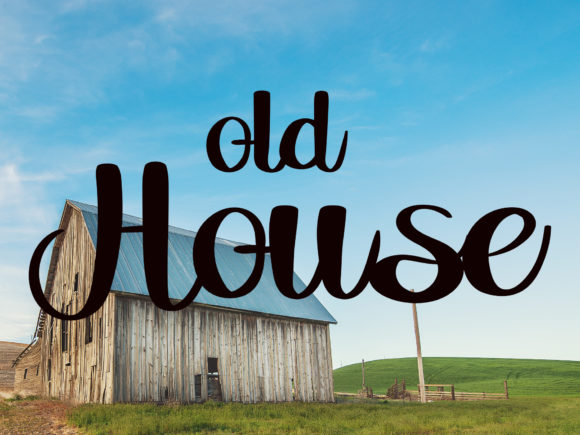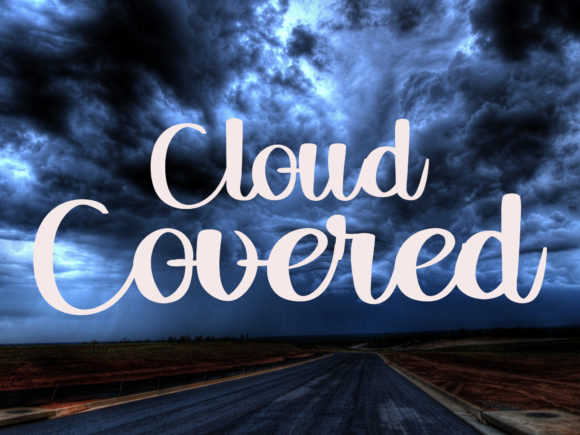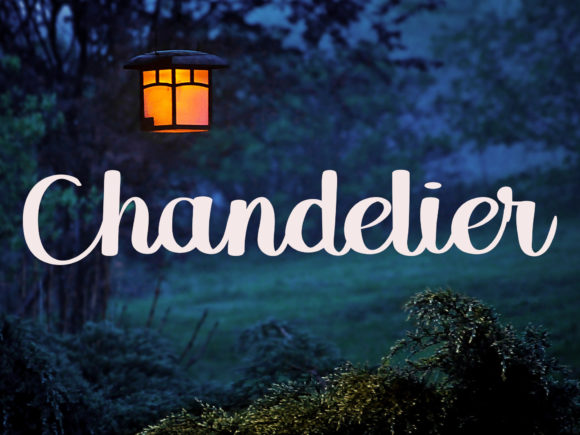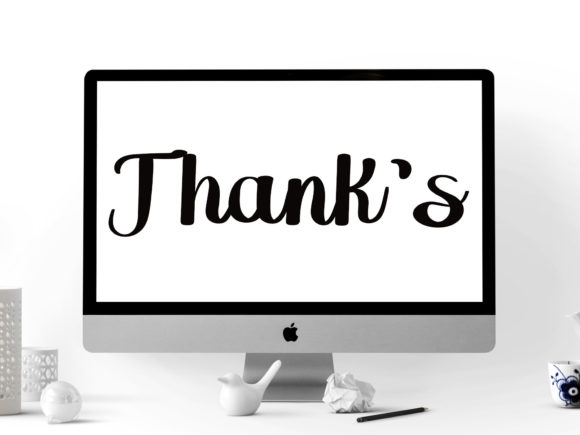
Candy Sea Font: The Sweetest Addition to Your Design Collection
Are you a designer or crafter looking for a font that can add a touch of sweetness and romance to your designs? Look no further than Candy Sea, a beautiful handwritten font that’s perfect for creating wedding invitations, cards, and other designs that require a personal and delicate touch.
What is Candy Sea Font?
Candy Sea is a sweet and delicate handwritten font that’s designed to bring a touch of joy and whimsy to your designs. With its dainty and elegant lettering, this font is ideal for creating romantic and personalized designs that will leave a lasting impression on your audience.
Key Features of Candy Sea Font
- Handwritten with love: Candy Sea is a carefully crafted handwritten font that’s designed to look like it was written with love and care.
- Dainty and delicate: The font features delicate lettering that’s perfect for creating romantic and whimsical designs.
- Joyful and playful: Despite its delicate nature, Candy Sea has a playful and joyful vibe that’s perfect for creating designs that are fun and uplifting.
- Perfect for wedding designs: With its romantic and elegant feel, Candy Sea is an ideal choice for creating wedding invitations, cards, and other wedding-related designs.
Why Choose Candy Sea Font?
So, why should you choose Candy Sea font for your designs? Here are just a few reasons why this font stands out from the crowd:
- Unique and eye-catching: Candy Sea is a unique and eye-catching font that’s sure to grab attention and leave a lasting impression on your audience.
- Versatile: This font can be used for a wide range of designs, from wedding invitations and cards to packaging and branding.
- Easy to read: Despite its delicate nature, Candy Sea is easy to read and understand, making it perfect for designs that require a clear and concise message.
- Customizable: With Candy Sea, you can customize your designs to fit your brand’s style and personality, making it easy to create designs that are truly one-of-a-kind.
How to Use Candy Sea Font
Using Candy Sea font is easy! Here are a few tips to get you started:
- Pair it with other fonts: Candy Sea looks great when paired with other fonts, such as sans-serif fonts or script fonts.
- Use it for headings and titles: This font is perfect for headings and titles, where you want to make a bold and eye-catching statement.
- Add some color: Candy Sea looks great in a variety of colors, from soft pastels to bold brights.
Design Ideas with Candy Sea Font
So, what can you create with Candy Sea font? Here are a few design ideas to get you started:
- Wedding invitations: Create beautiful and romantic wedding invitations that set the tone for the big day.
- Birthday cards: Design personalized birthday cards that are sure to delight the recipient.
- Branding and packaging: Use Candy Sea to create custom branding and packaging that stands out from the crowd.
- Social media graphics: Create eye-catching social media graphics that showcase your brand’s personality and style.